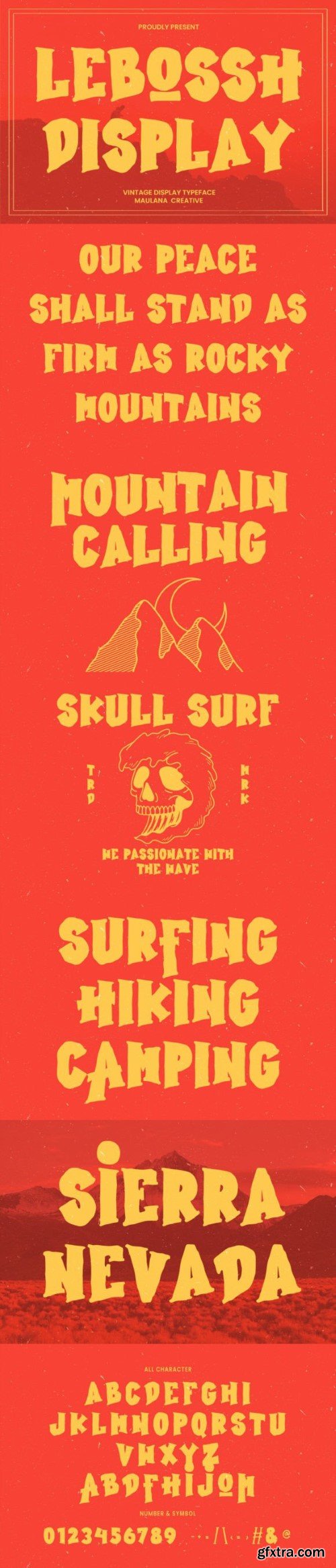
洛博斯字体
Lebossh Vintage Display Typeface is a classic font that brings a touch of timeless style to your designs. With its vintage charm and bold presence, this typeface adds a hint of nostalgia to any project. Perfect for creating eye-catching headlines, signage, or branding with a hint of the past. Lebossh effortlessly combines sophistication and retro vibes for a memorable typographic experience.